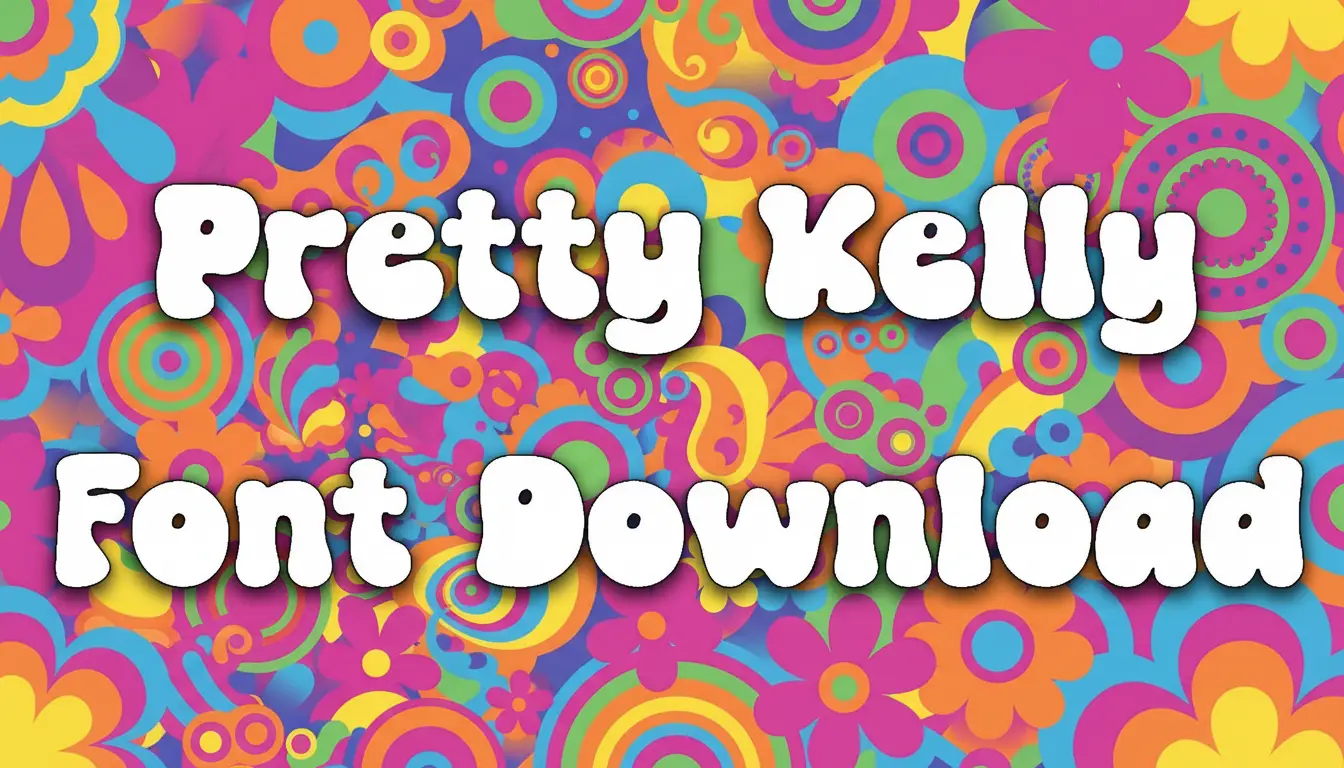
Pretty Kelly is a bold, playful, and funky retro-groovy display typeface. Designed by Rian Dryana (under the studio name Dryy.type), it breaks away from standard handwriting scripts to deliver a distinct 1970s vintage aesthetic.
Pretty Kelly
Pretty Kelly is a fancy font created by Rian Dryana (2023).
- Designer: Rian Dryana